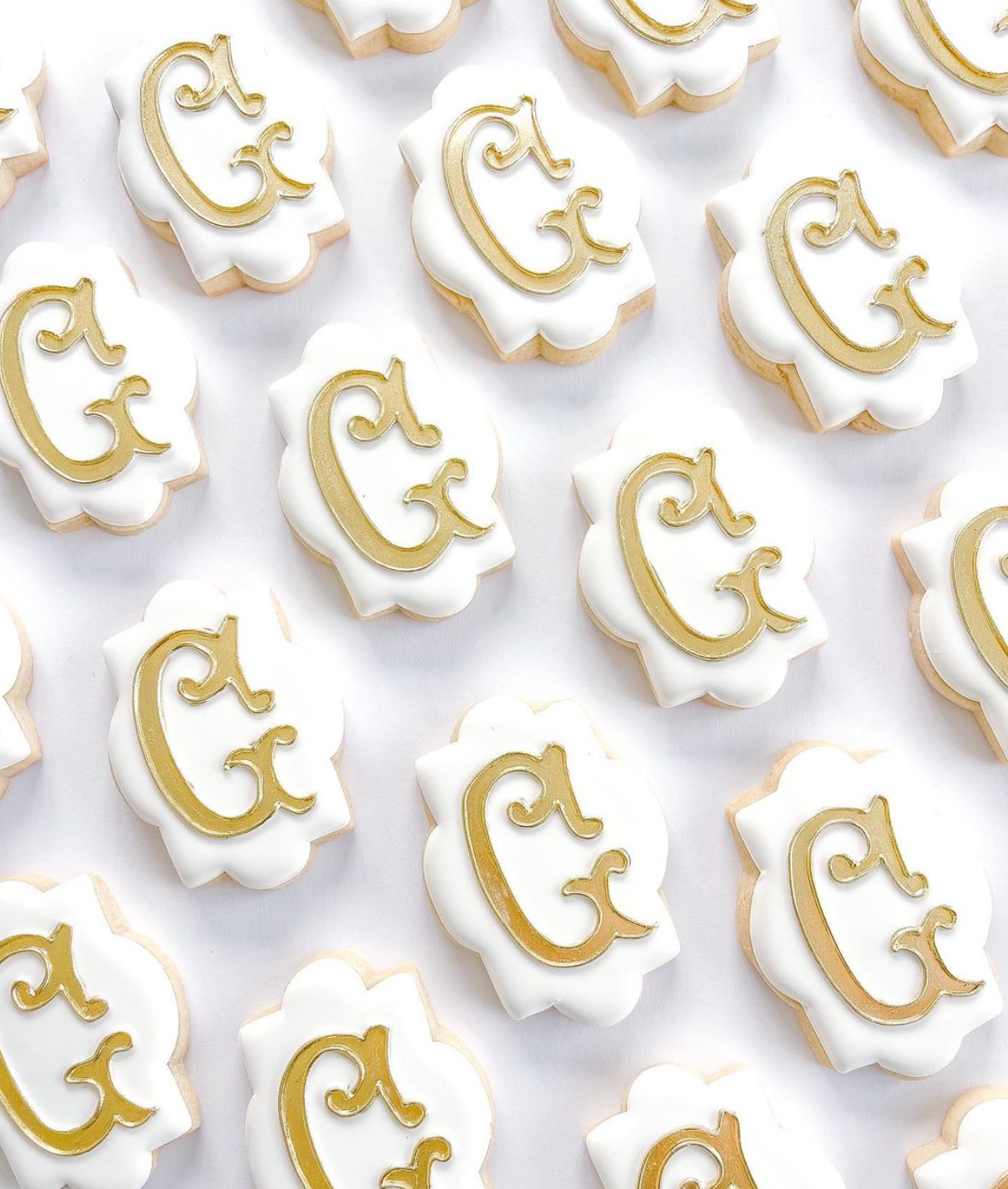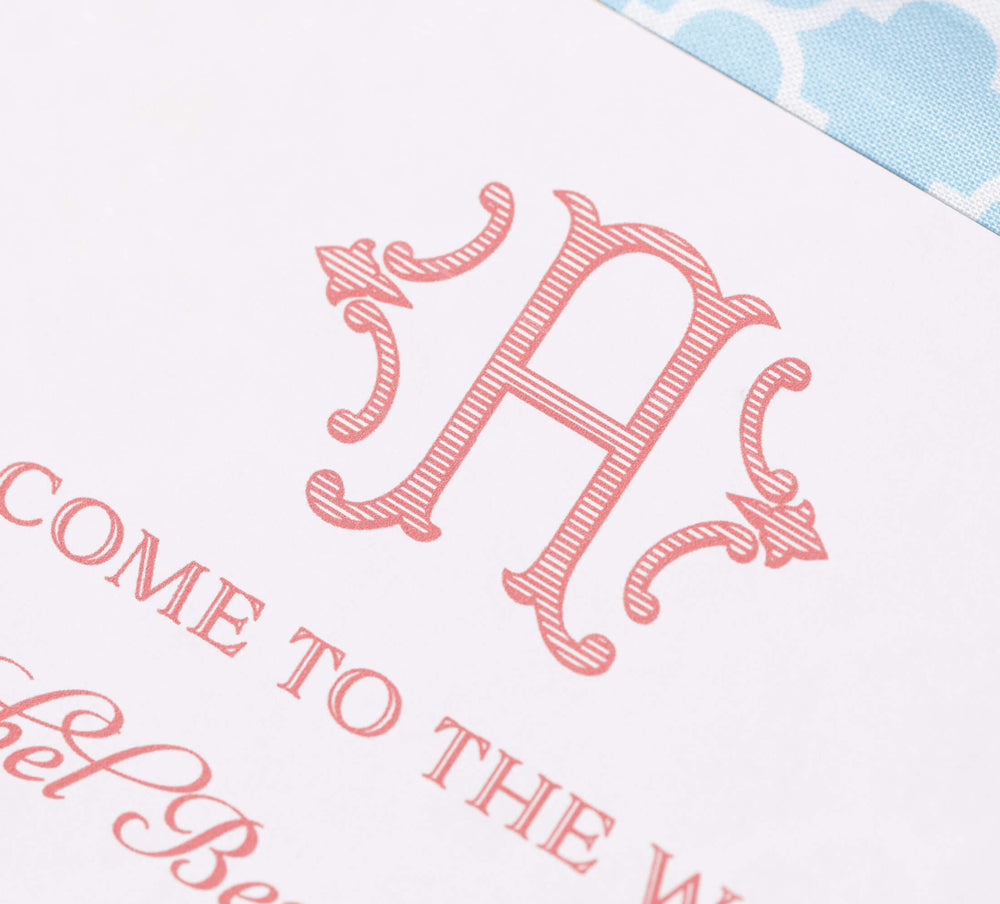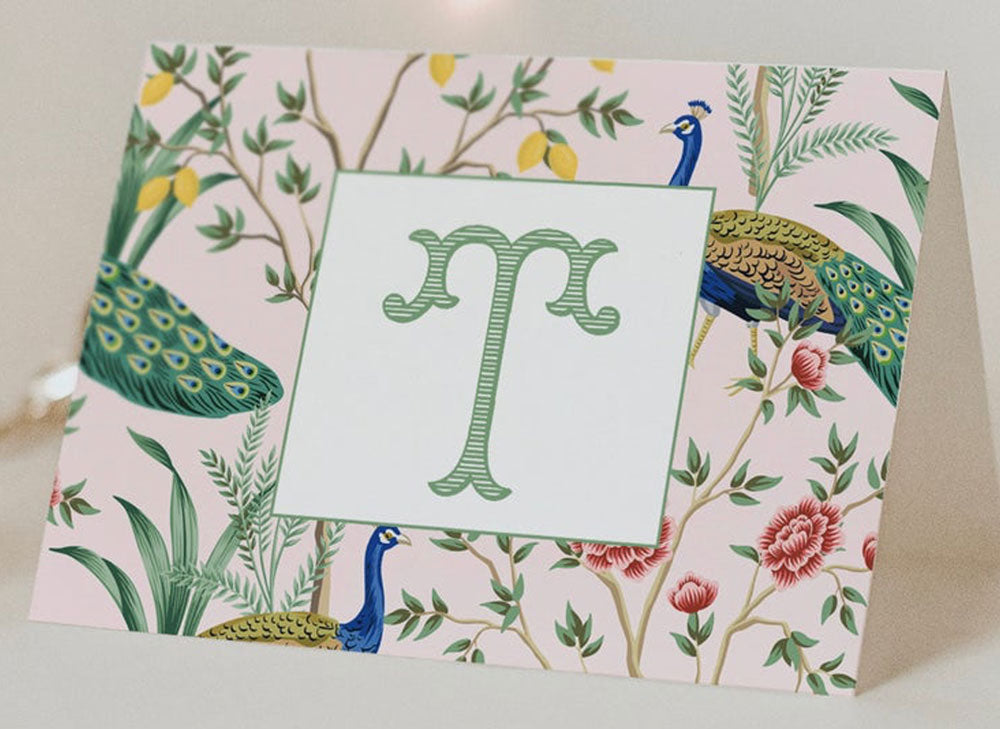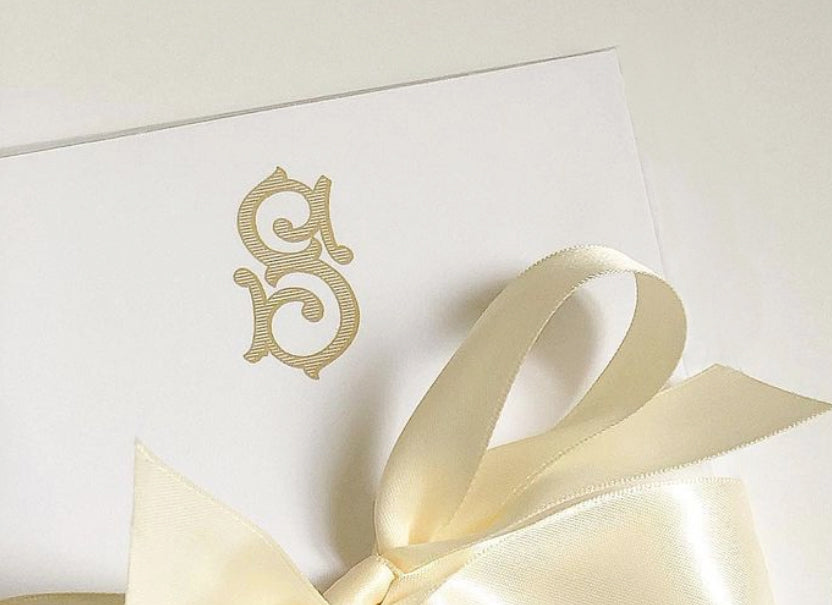
Single Romanesque Font for Print
Our Single Romanesque Font is a beautiful collection of 26 solid letters & 26 line-filled letters with 2 ornament designs that complement each letter.